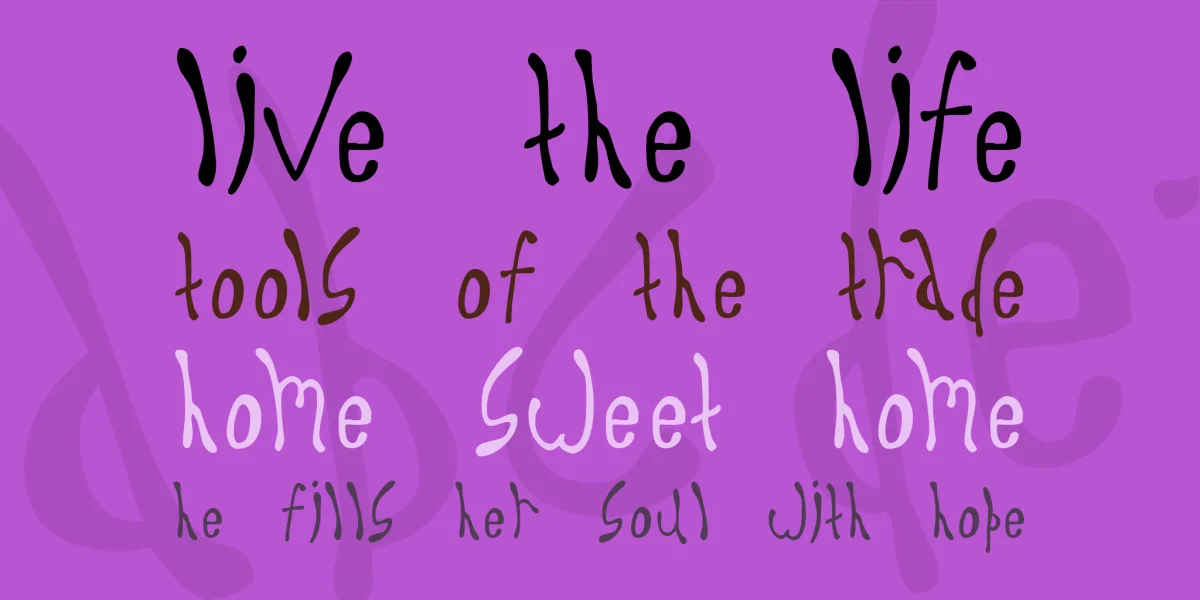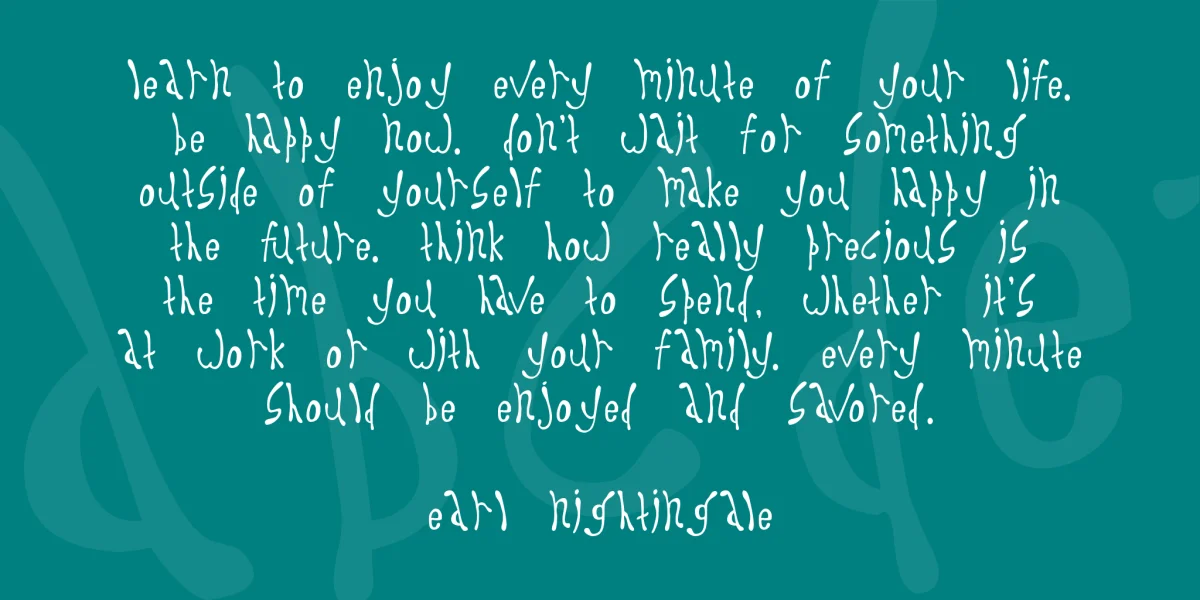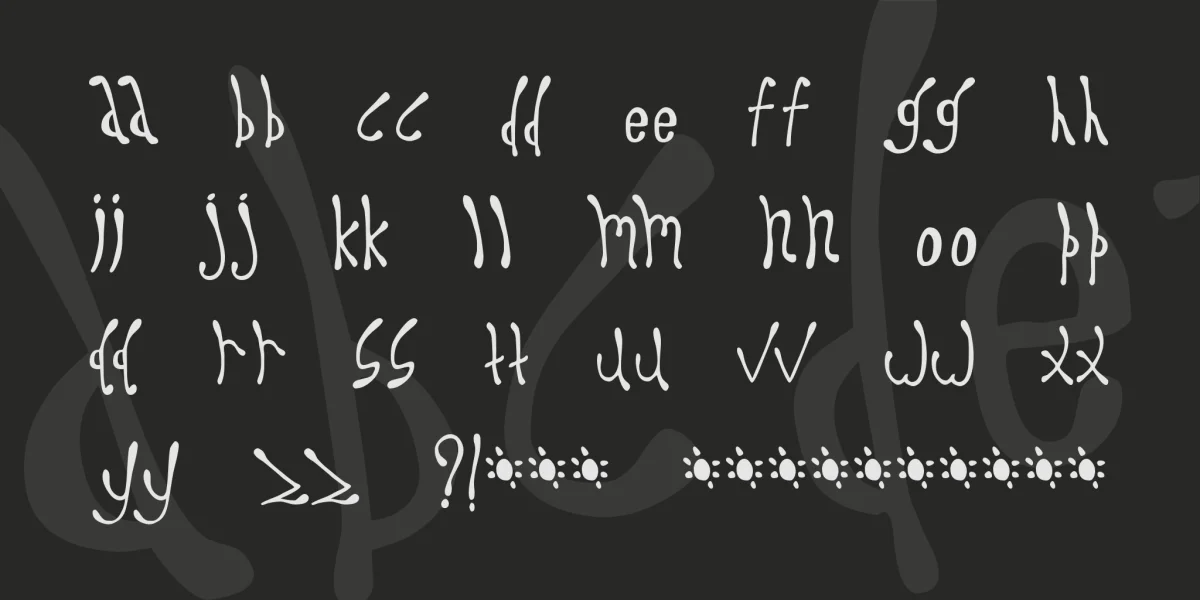
(Caps/Lower [same], some Punctuation, some special), part of the Periodic Table series, I guess, is a sort of long, round, and excited font. Best suited for headlines. Kerned, hand hinted, Enjoy!